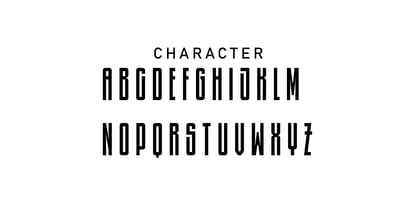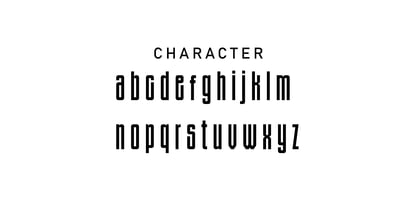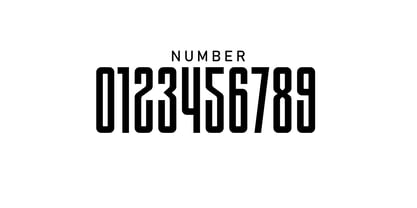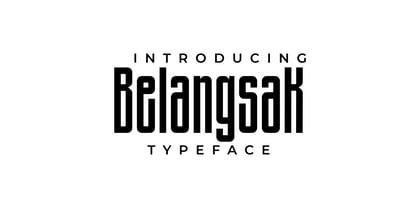
Belangsak
by WidyDm
The Belangsak Font Family was designed by Widya Dwi Marbani, Widya D Marbani and published by WidyDm. Belangsak contains 2 styles and family package options. More about this family
Belangsak is a bold and condensed display typeface with a modern gothic vibe. Its sharp edges, tall letterforms, and clean geometric structure make it perfect for striking titles, branding, posters, apparel, and logo designs. Inspired by tribal and gothic aesthetics, Belangsak brings a sense of strength, rebellion, and creativity to any visual composition. Whether you’re designing for a music album, streetwear brand, or digital artwork, this font ensures a strong visual impact and memorable identity.
Designers: Widya Dwi Marbani, Widya D Marbani
Current Foundry: WidyDm